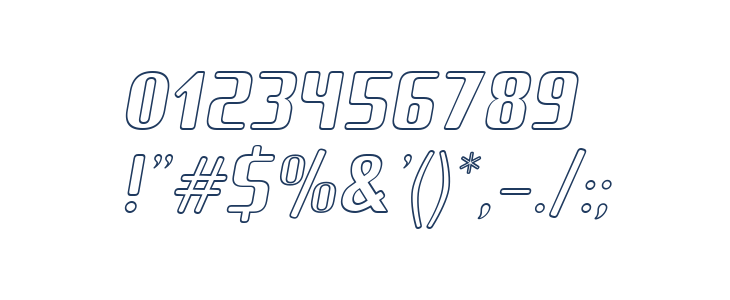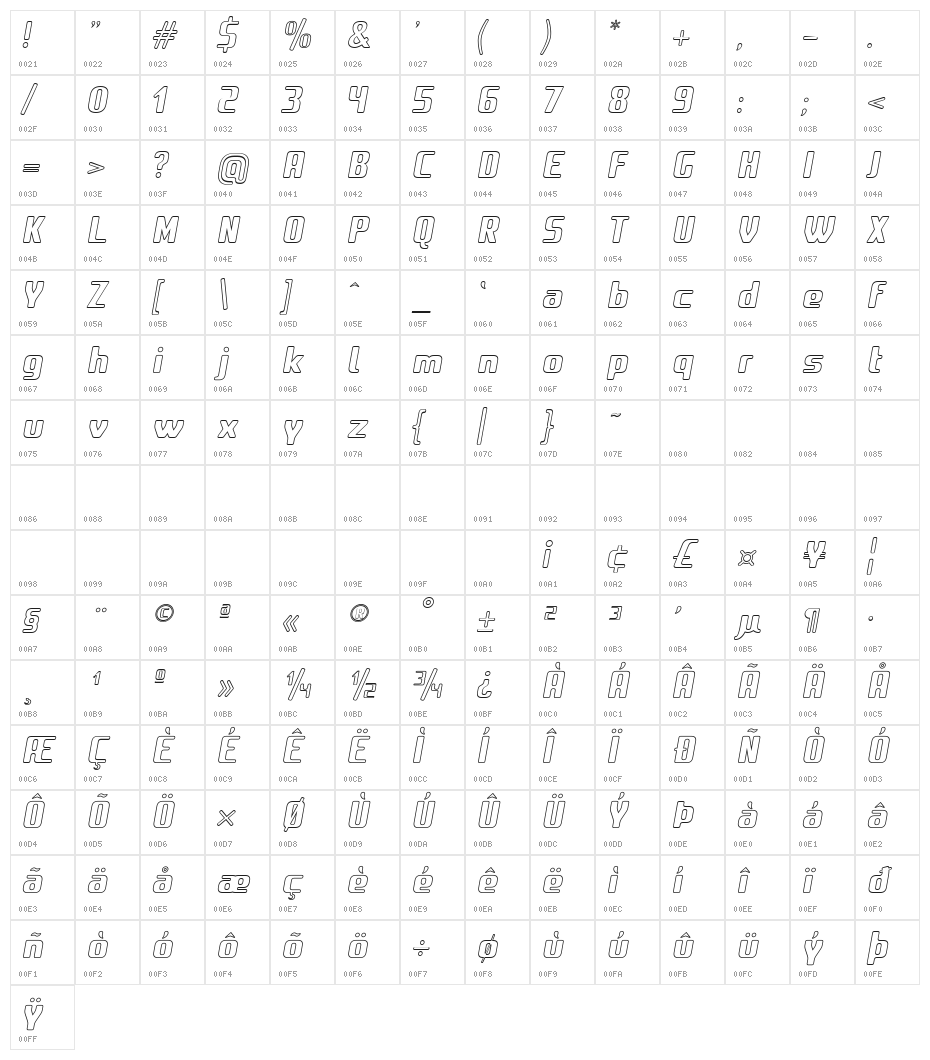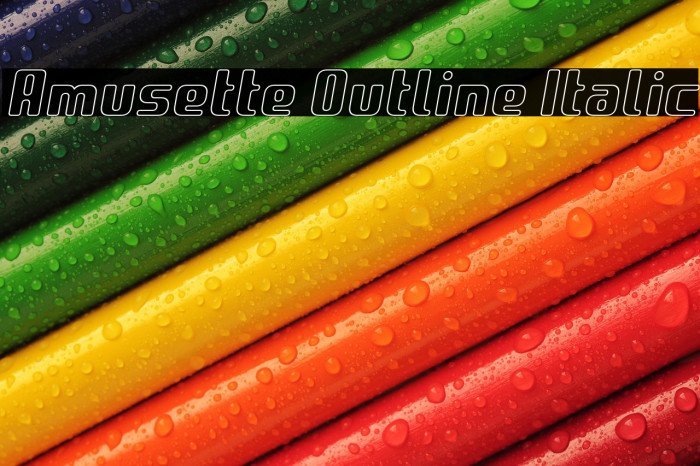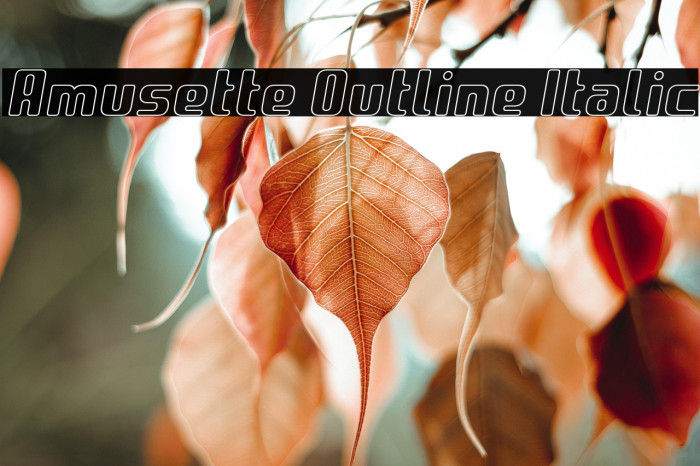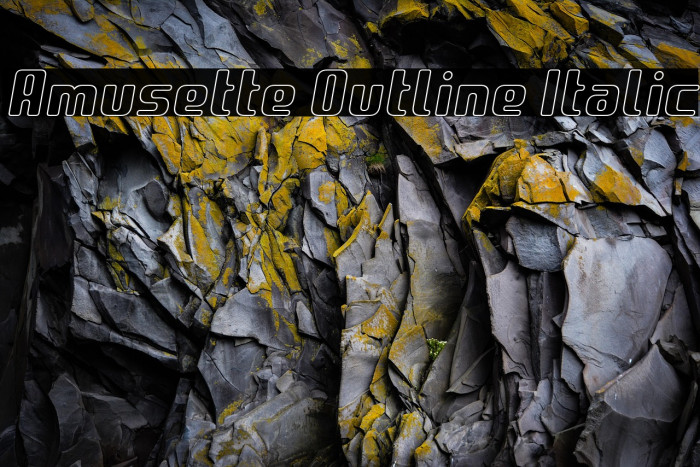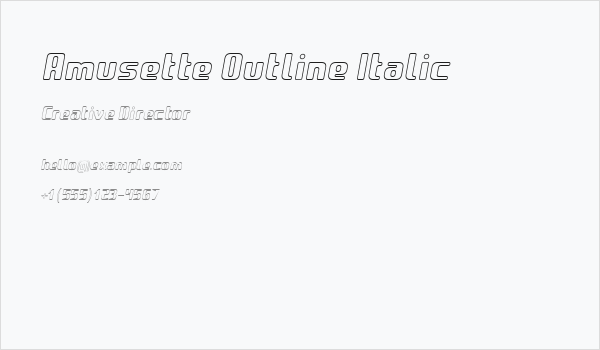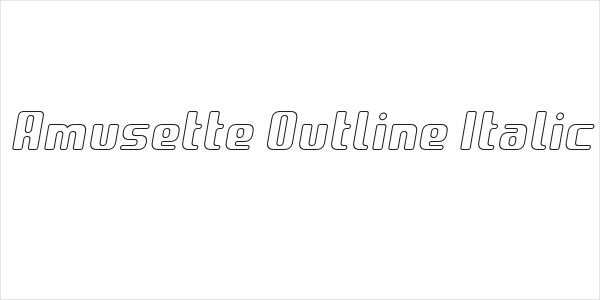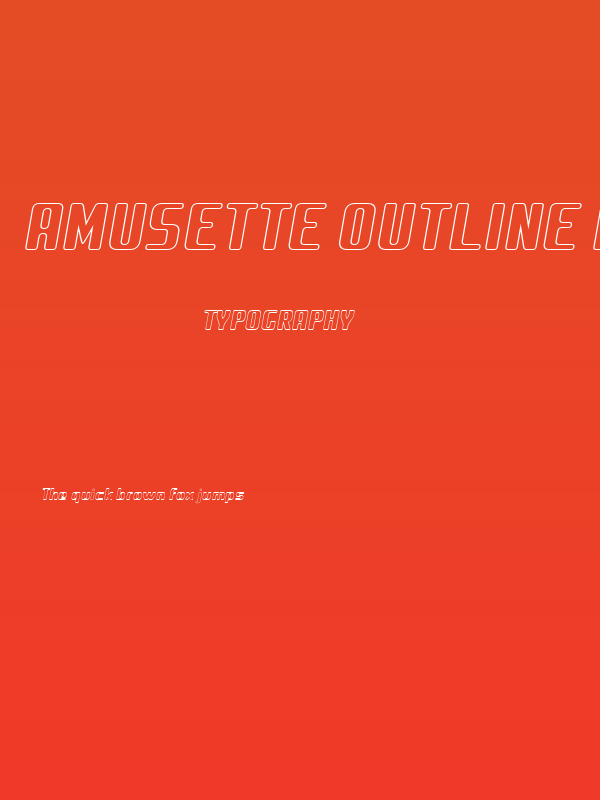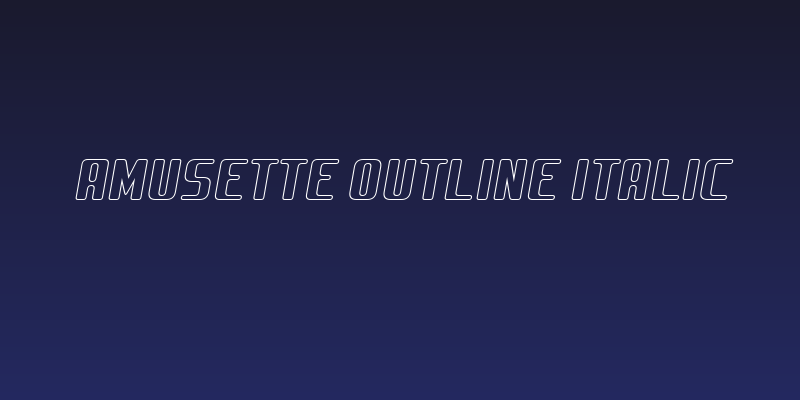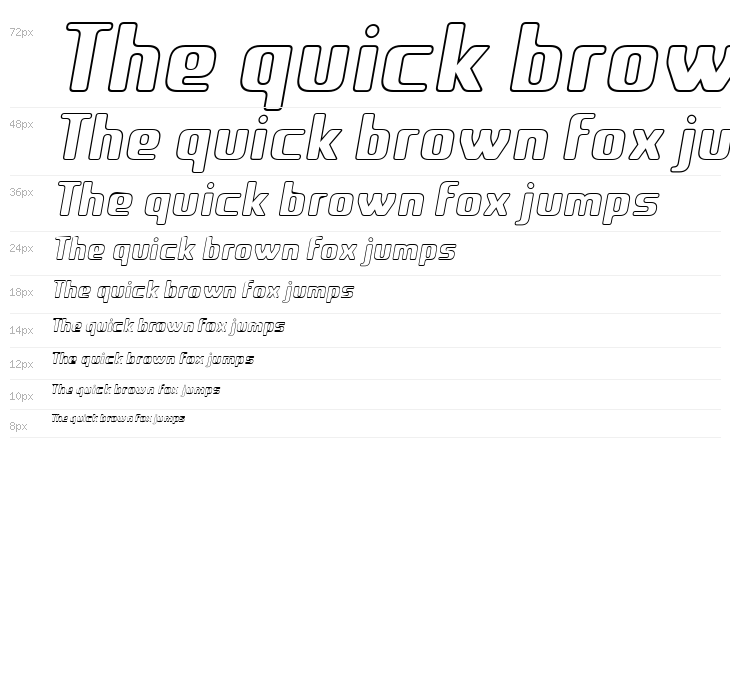
Amusette Outline Italic Font
Amusette Outline Italic Description
This font features a unique outline style with a modern and playful aesthetic. The characters are italicized, giving them a dynamic and forward-leaning appearance. Each letter and number is crafted with a consistent stroke width, creating a harmonious and balanced look. The font's outline design adds a sense of openness and lightness, making it suitable for creative and eye-catching projects. The uppercase and lowercase letters maintain a uniform style, while the numerals and special characters complement the overall design. This font is ideal for projects that require a contemporary and stylish touch.
| Proposed Projects | Ideal for branding, posters, headlines, and creative design projects. |